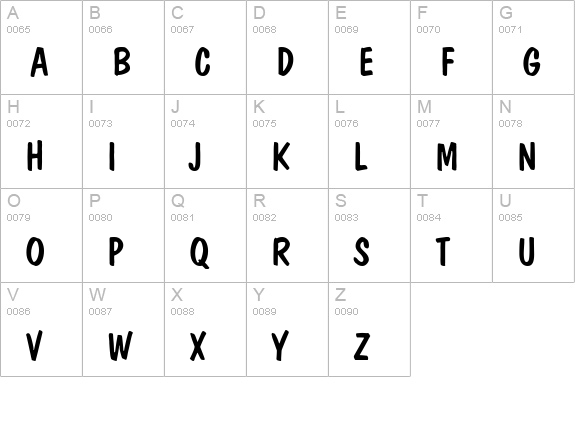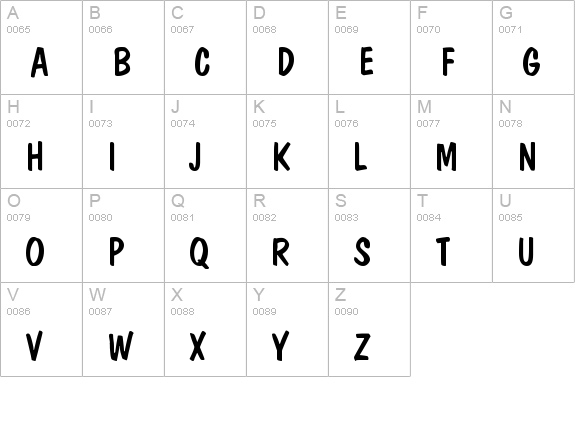
DonCasualSWPlain Font Details
DonCasualSWPlain font is a stylish and versatile typeface that exudes a casual and friendly vibe. With its clean lines and simple yet elegant design, this font is perfect for a wide range of projects, from branding to web design. The soft curves and rounded edges give it a modern and approachable look, making it an excellent choice for adding a touch of personality to your designs. What's even better is that DonCasualSWPlain font is available for free download at FontsMarket.com. This means you can easily access this high-quality font without any cost, allowing you to enhance your projects without breaking the bank. Whether you're working on a personal project or a professional design, DonCasualSWPlain font is sure to bring a fresh and modern feel to your work. Download it today and elevate your designs with this fantastic font.